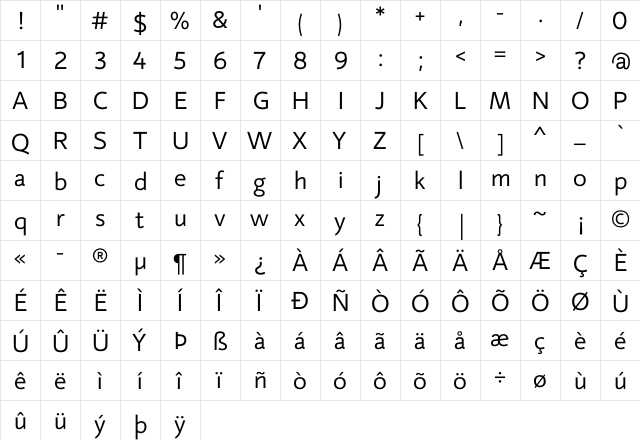
mirror 82 Regular
| Foundry | Igor Kosinsky |
| Designer | Igor Kosinsky |
Design Context for mirror 82 Typeface
mirror 82 takes a measured approach to typography — its balanced proportions and neutral character make it a reliable workhorse for both digital and print work.